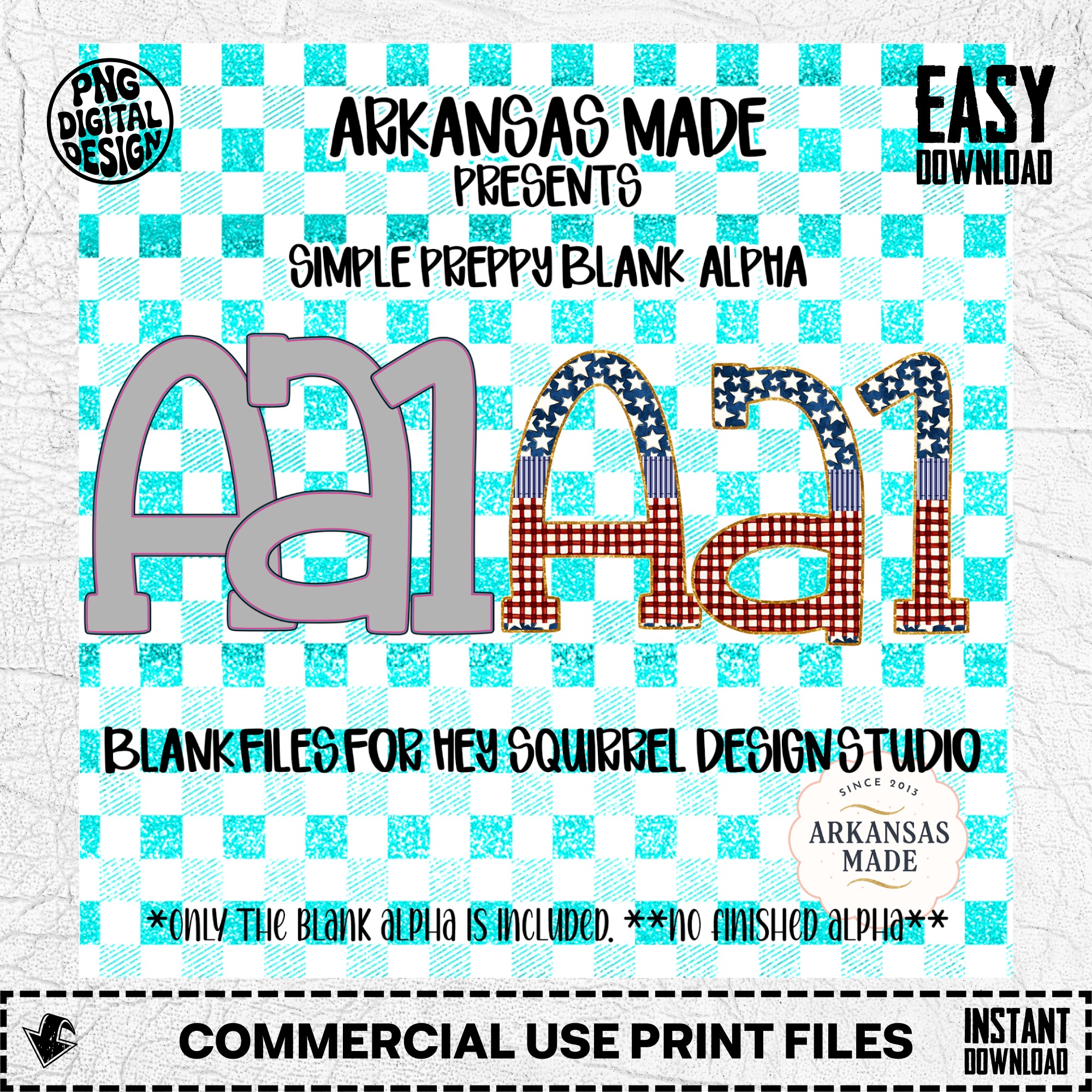
Simple Preppy Blank Alpha PNGs for Hey Squirrel Design Studio | Digital Download Font Letters Numbers | Crafting Sublimation Design Files
Elevate your designs with our Simple Preppy Blank Alpha PNGs, perfectly crafted for Hey Squirrel Design Studio. Instant digital download! These versatile blank alphabet and number files are ideal for crafters, small business owners, and designers. Create custom t-shirts, tumblers, and personalized gifts with ease using this essential graphic resource. Perfect for anyone looking to add a clean, preppy touch to their digital projects.